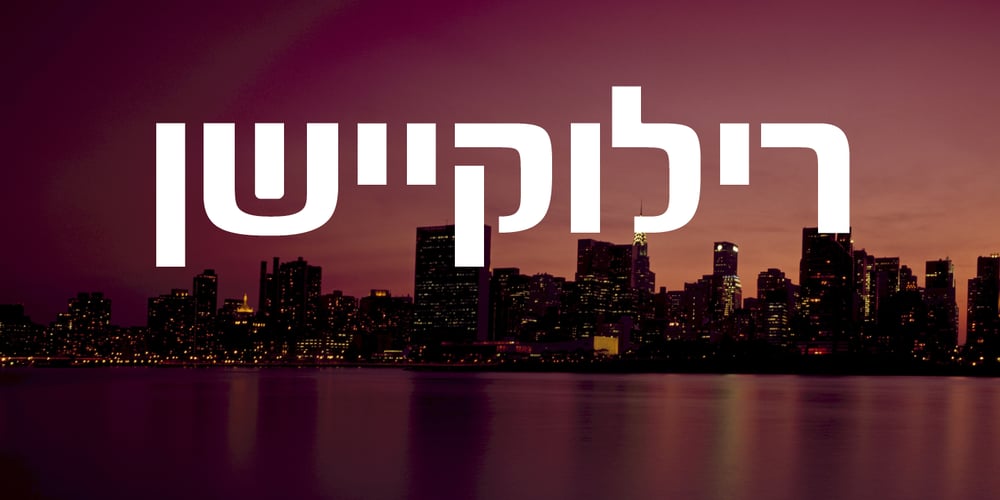
Tashlim MF Font Family was designed by Eliyahu Fried and published by Masterfont. Tashlim MF contains 2 styles and family package options. Super clear and elegant display font with round edges to fit any logo or signage.